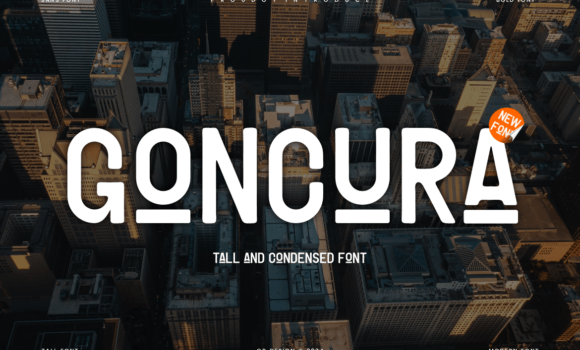
Goncura Font – Free Download Introduction to Goncura Font Goncura is a bold and contemporary tall sans-serif font with a minimalistic yet impactful design. 📸 Preview Gallery 5 images 📌 Product Name Goncura Font 👤 Author qrdesignstd 📂 Category Explore